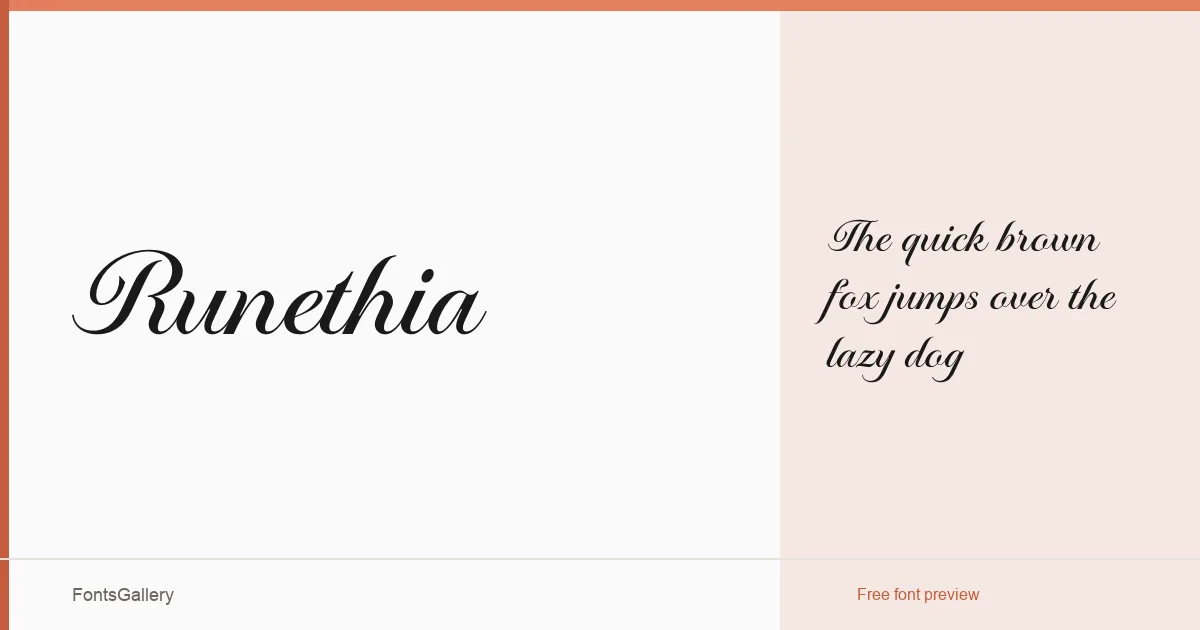
About Runethia Font
Runethia is an elegant script typeface designed by Muhammad Yusron Billah, crafted to evoke a sense of luxury, romance, and timeless sophistication. Its flowing letterforms make it a compelling choice for projects that demand a refined and classic aesthetic. Whether used in print or digital media, Runethia brings a graceful, distinguished character to any design.
As a script typeface, Runethia features fluid, connected letterforms that exude elegance and romance, drawing inspiration from classic calligraphic traditions. Each character is shaped with sweeping curves and delicate strokes that contribute to its luxurious, high-end feel. The overall composition balances ornate detail with legibility, making it both visually striking and functionally versatile.
Runethia is ideally suited for logos, branding projects, wedding stationery, invitation cards, and greeting cards where a romantic and classic tone is desired. Its elegant style pairs beautifully with the editorial refinement of Aresink or the clean neutrality of Helvetica, creating balanced and sophisticated typographic combinations that allow Runethia to shine as a display face.